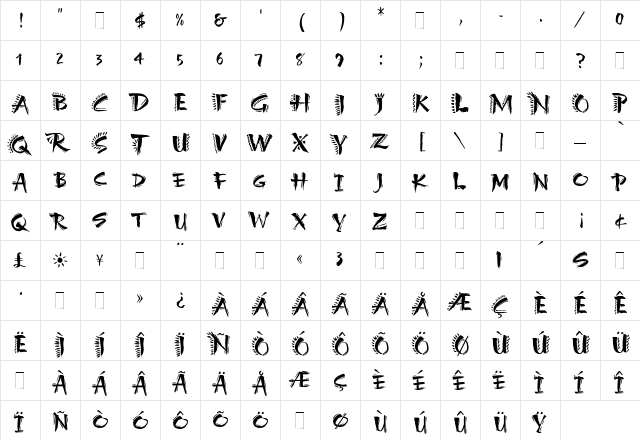
Carumba Hot Caps Regular Font Preview
Carumba Hot Caps Regular
Carumba Hot Caps Regular Font Details
Design Context for Carumba Hot Caps Typeface
Carumba Hot Caps is a composed and adaptable typeface that performs quietly and consistently across a wide range of design contexts.